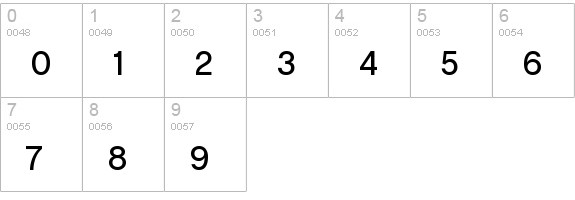
ChaletBookTTSC Font Details
ChaletBookTTSC font is a timeless and classic typeface that exudes elegance and sophistication. Its refined and graceful letterforms make it perfect for a wide range of design projects, from formal invitations to luxury branding. The font's balanced proportions and clean lines ensure readability and legibility in any size or format. What sets ChaletBookTTSC font apart is not just its beauty, but also its accessibility. This high-quality font is available for free download at FontsMarket.com, making it easy for designers and creatives to access and use in their projects without any cost. Embrace the timeless charm and versatility of ChaletBookTTSC font in your next design endeavor.